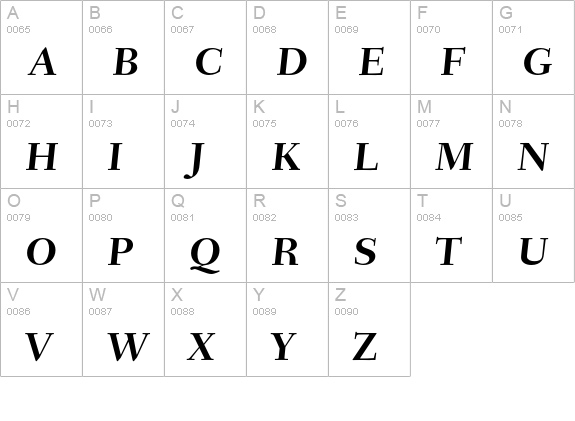
Fairfield LH 75 Caption Bold is a strong, high-contrast variant in the Fairfield typeface family \xE2\x80\x94 well suited to headlines, attention-grabbing titles, and strong calls-to-action.
The Fairfield LH 75 Caption Bold font is a striking typeface that exudes elegance and sophistication. With its bold and distinctive letterforms, this font is perfect for making a bold statement in your designs. Whether you're creating eye-catching headlines or designing impactful branding materials, this font will help your text stand out. Best of all, the Fairfield LH 75 Caption Bold font is free to download at FontsMarket.com. Simply visit the website and get instant access to this stunning font for your projects. Don't miss out on the opportunity to elevate your designs with this versatile and stylish typeface. Download it today and add a touch of sophistication to your work!